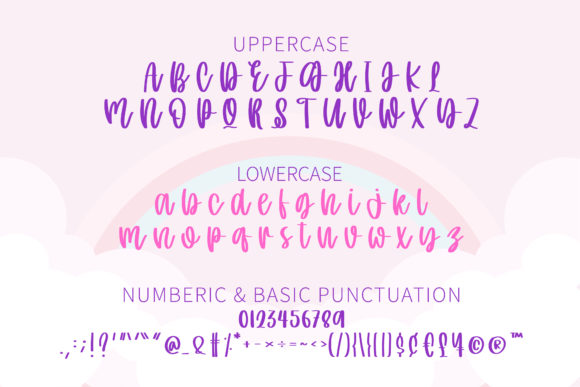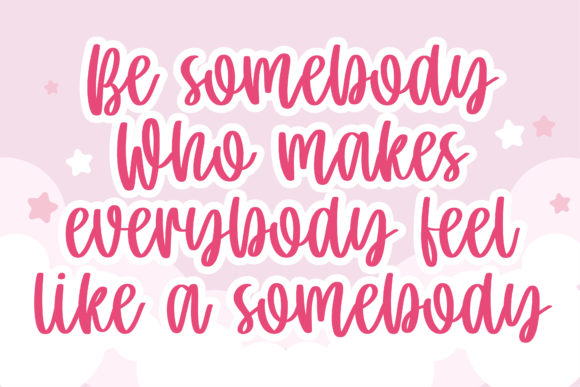
“Unicorn Story” presents itself as a charming and amiable script font, radiating an aura of sweetness that effortlessly resonates across a diverse range of design projects. This font’s innate appeal, coupled with its distinctive and organic style, positions it as a versatile tool ready to bring your creative visions to life.
What truly sets “Unicorn Story” apart is its innate capacity to evoke a sense of warmth and approachability. Its handcrafted letters exude authenticity and a friendly demeanor, making it an ideal choice for designs seeking to establish a personal and relatable connection. With each stroke, the font weaves a narrative of familiarity and comfort, as if sharing a delightful story.
Imagine the magical impact of “Unicorn Story” on an array of designs—a whimsical children’s book brought to life by the font’s unique style, immersing young readers in a world of enchantment. Visualize the font adorning a logo for a cozy cafe, encapsulating the essence of homemade comfort in every curve. This font’s versatility seamlessly extends to different contexts, enhancing projects with a touch of endearing charm.
The natural charisma of “Unicorn Story” is positively enchanting. Its letters dance across the page, embodying a sense of spontaneity and unpretentiousness that elevates the overall design. It’s as if the font itself exudes a cheerful aura, extending an invitation for creators to embark on a journey of creative exploration.
Both designers and enthusiasts are destined to develop a deep affinity for the friendly allure of “Unicorn Story.” Its adaptability transcends the boundaries of conventional typography, making it a staple choice for an array of projects. More than a mere font, “Unicorn Story” evolves into a medium of expression, enabling creators to infuse their work with a dash of affability and approachable charm.
In essence, “Unicorn Story” transcends the confines of a typical font, emerging as a conduit for heartwarming communication. Its sweet and friendly script style beckons you to embrace the endless frontiers of design, transforming your ideas into tangible creations brimming with warmth. As you traverse the realms of your creative journey, let “Unicorn Story” be the steadfast companion that guides you in crafting designs that resonate deeply and stir the imagination, all while defying the limits of your creativity.